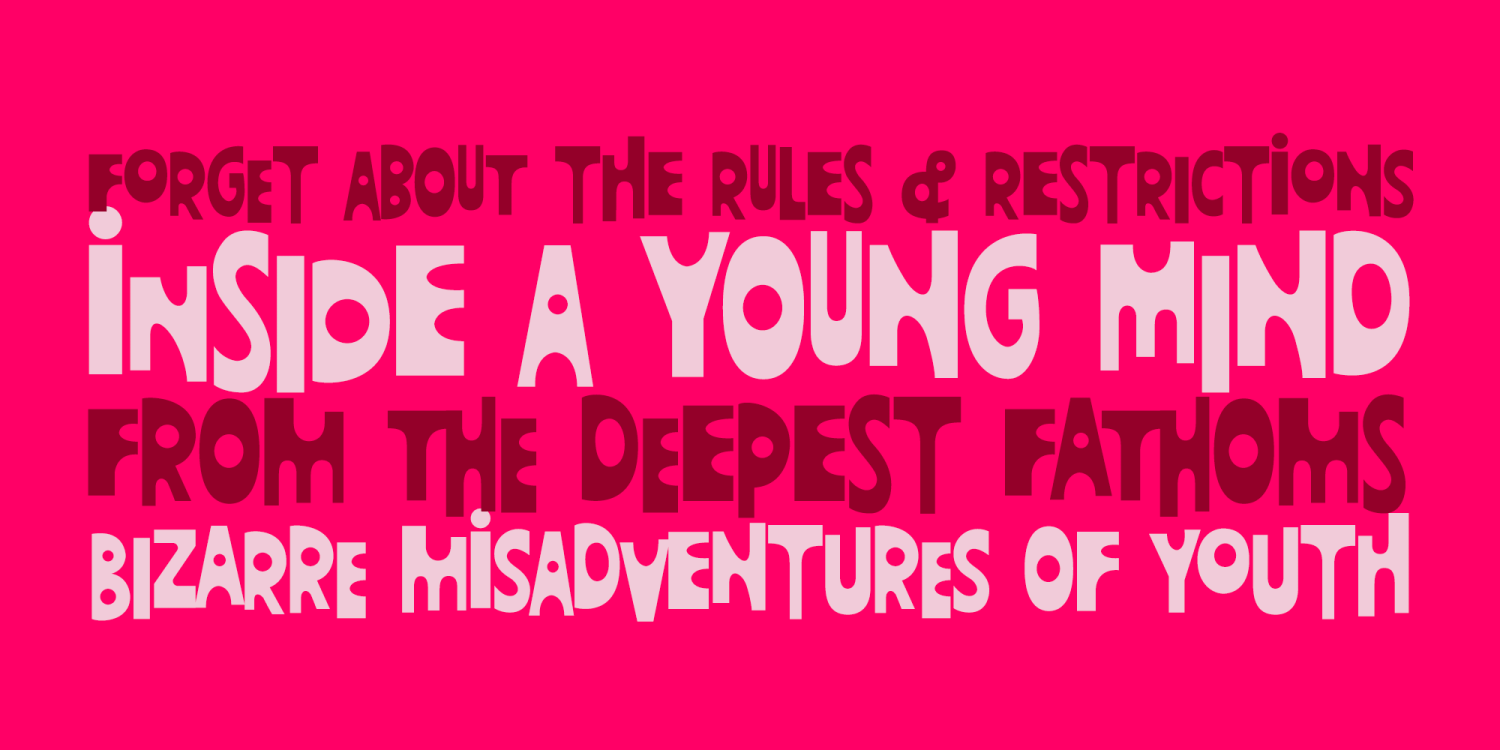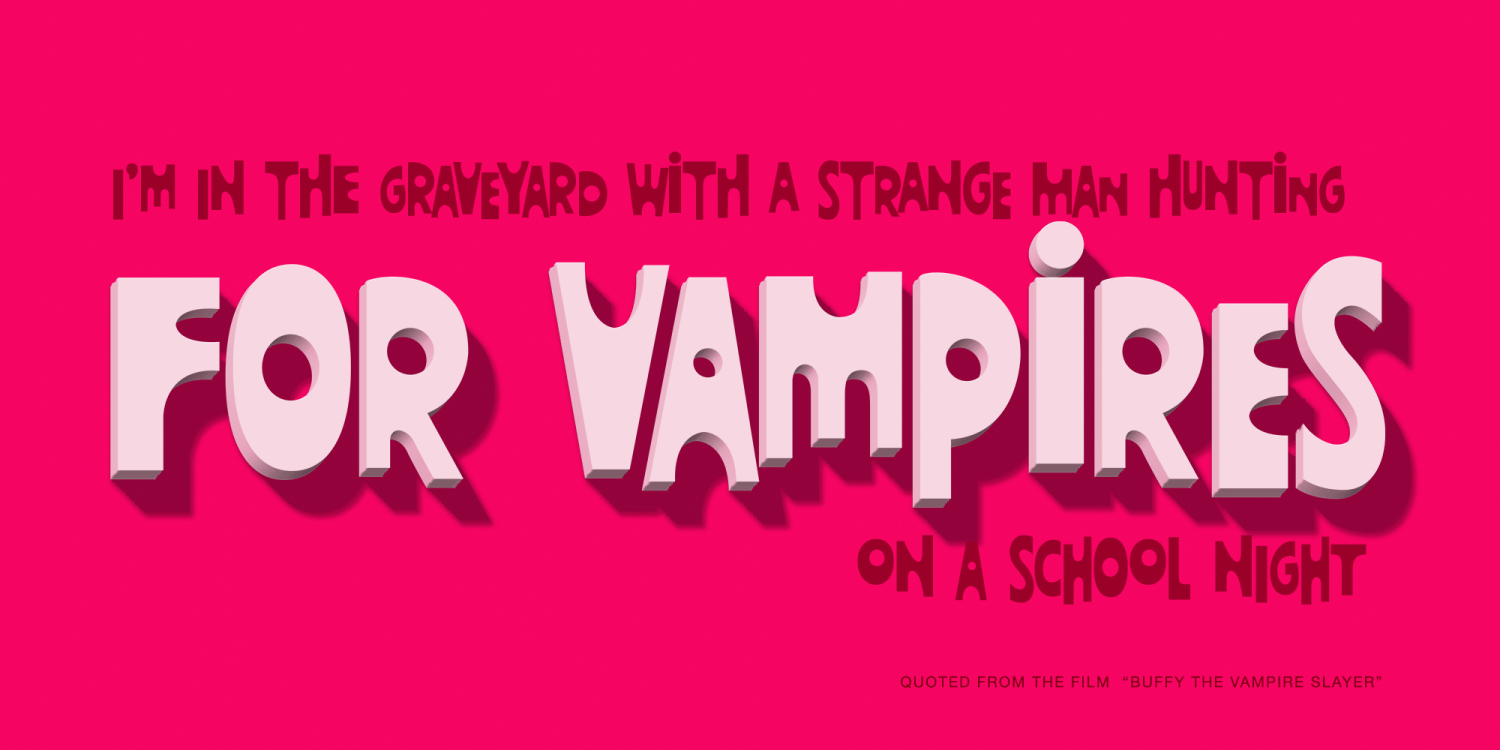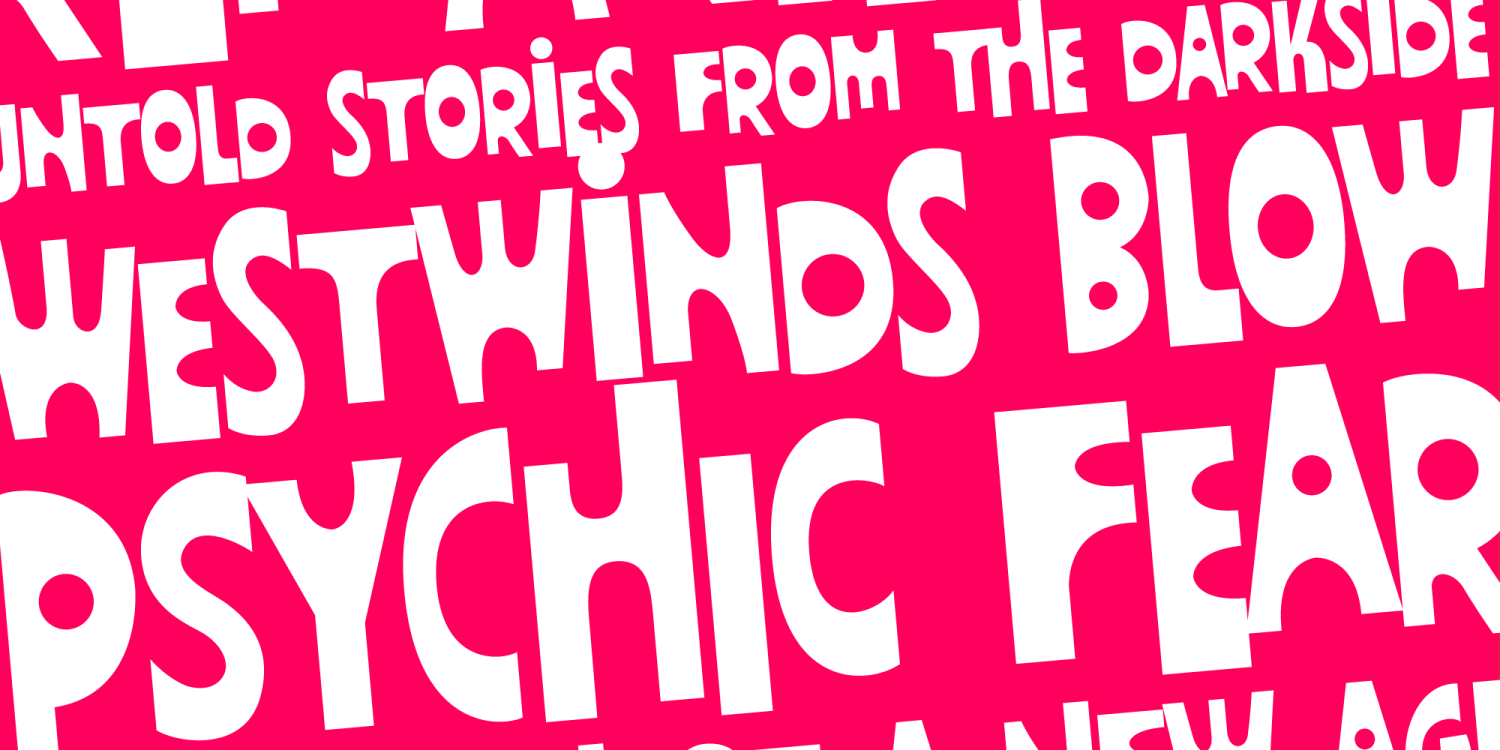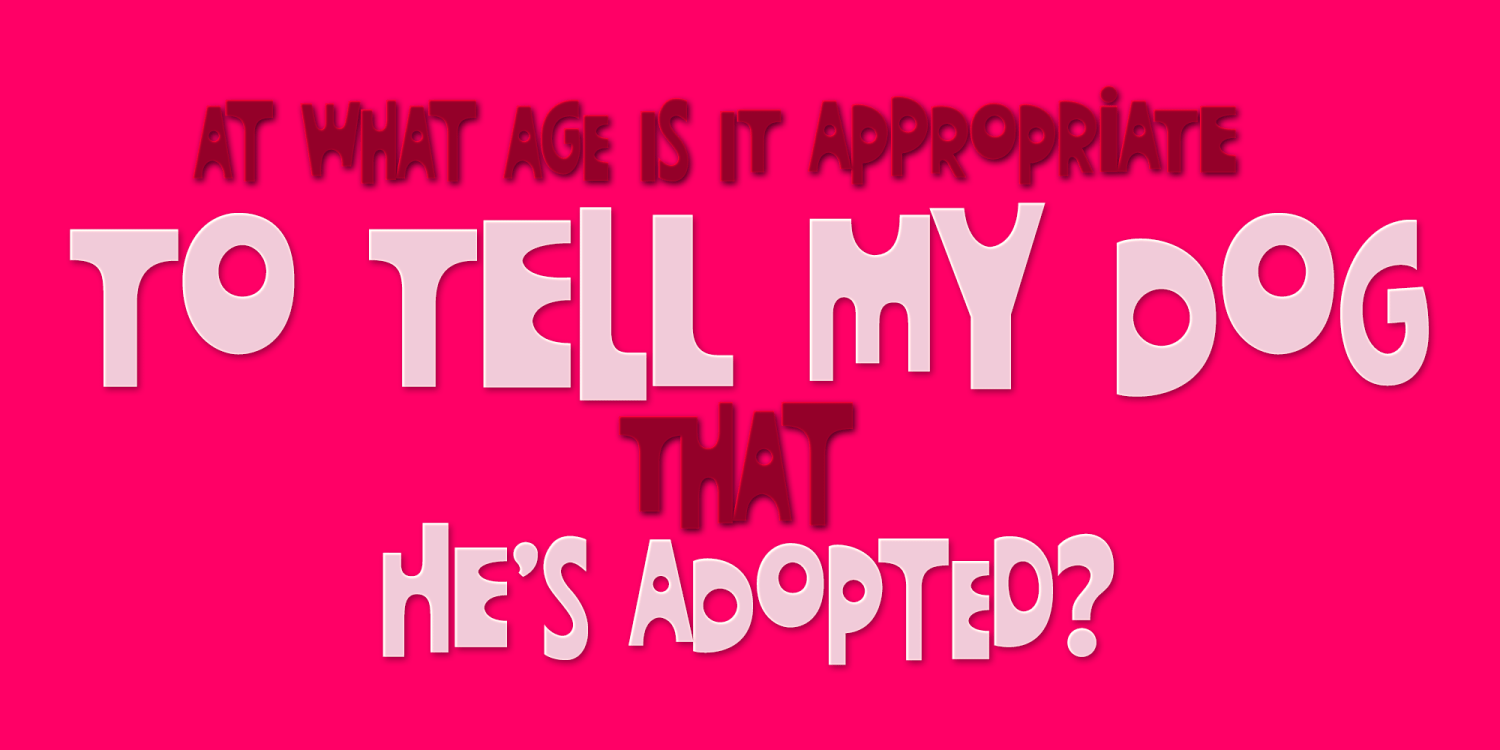
Fathoms PB
Font Family by Pink Broccoli
A totally off-the-wall sans serif font based on the titling from one of ABC's Movie of the Week series from 1969 called Daughter of the Mind. Turn on Contextual Alternates to automatically alternate between Capitals and Lowercase as you type to really make the font dance!